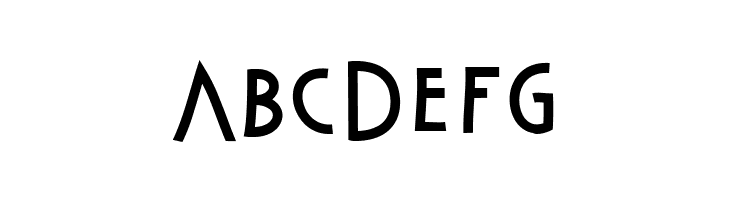
Ariston Comic Demo Regular Font
- Font: Ariston Comic Demo Regular
A modern, decorative font with elongated, narrow letterforms and a unique geometric style.